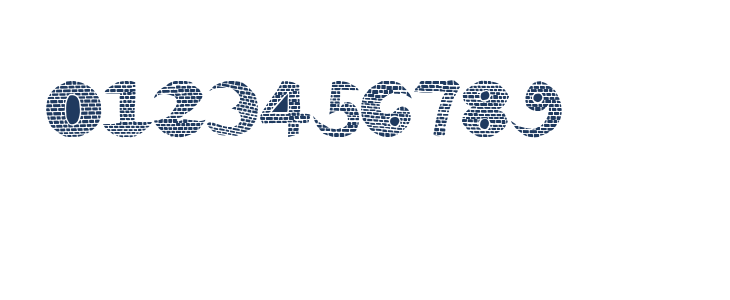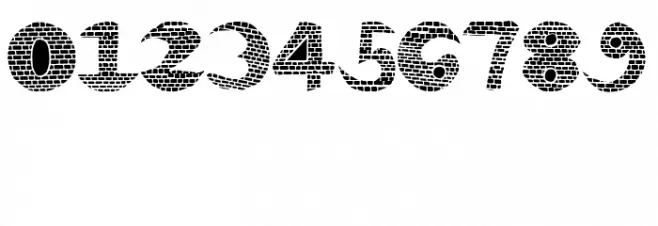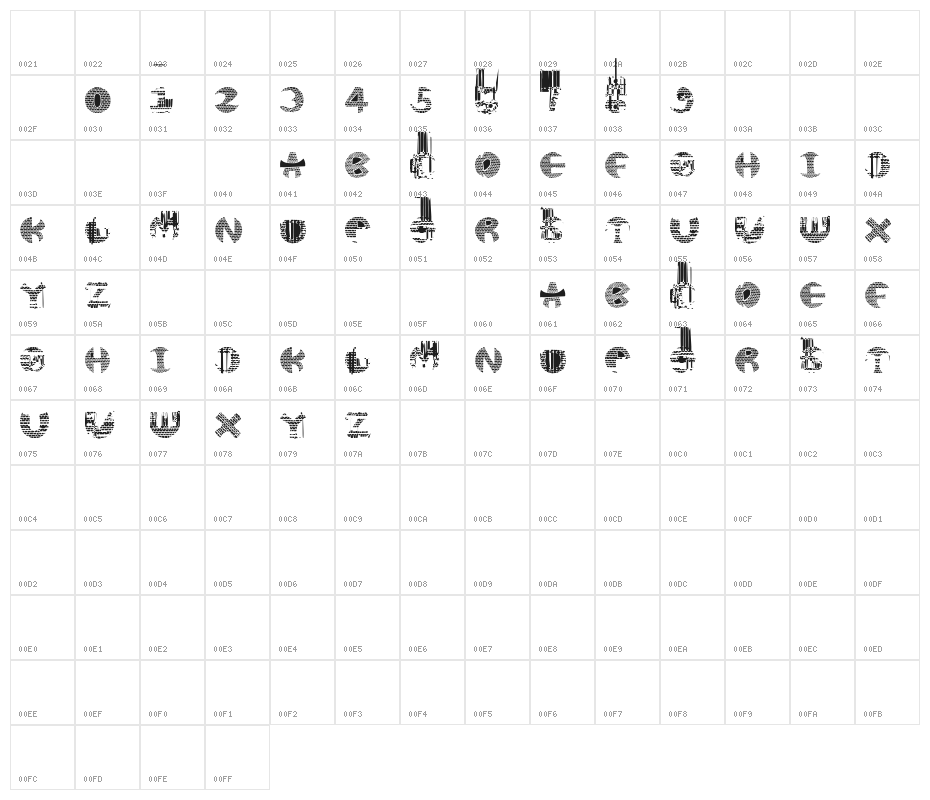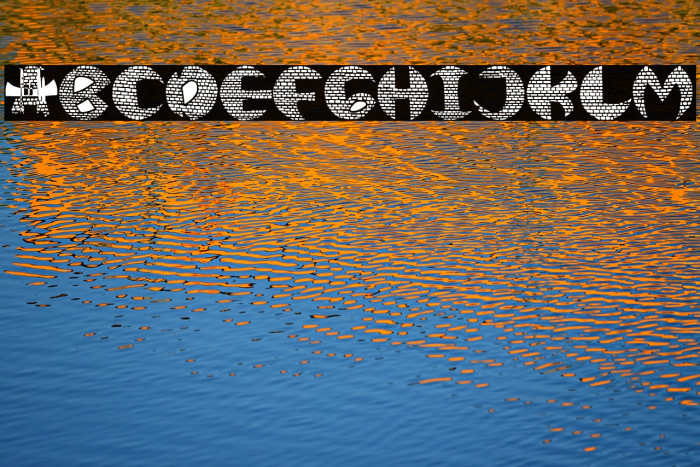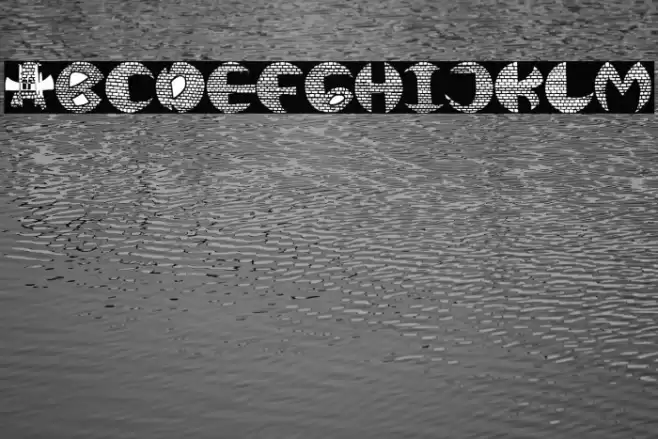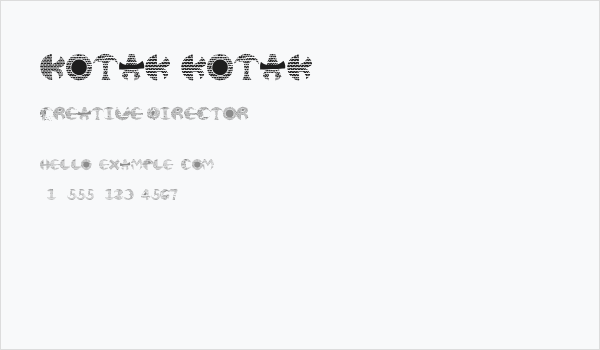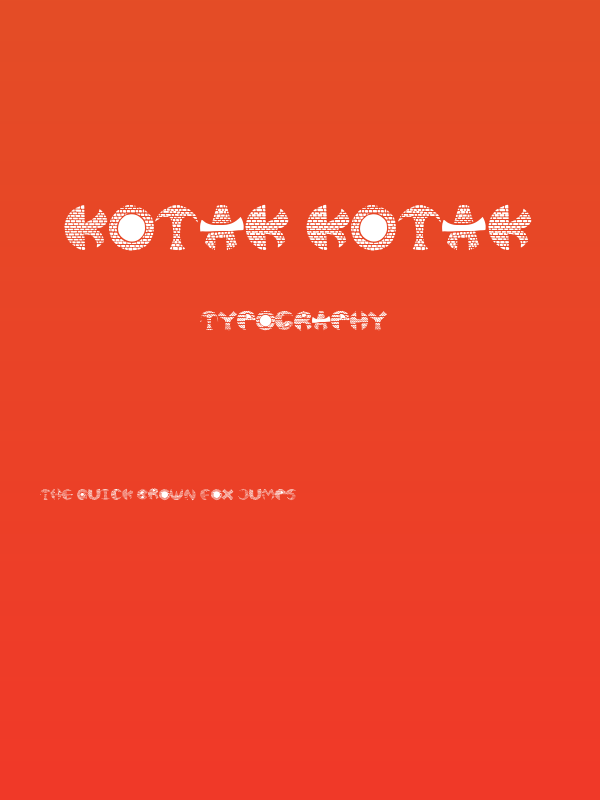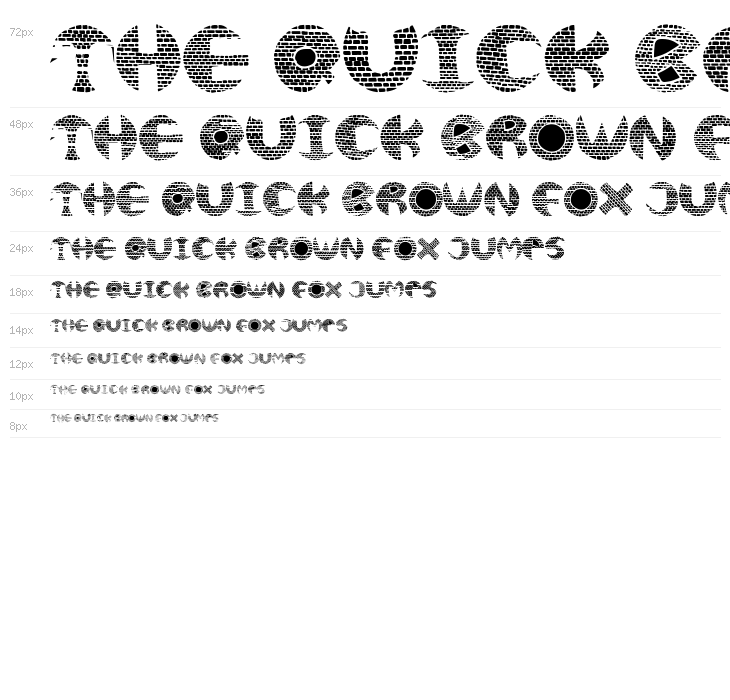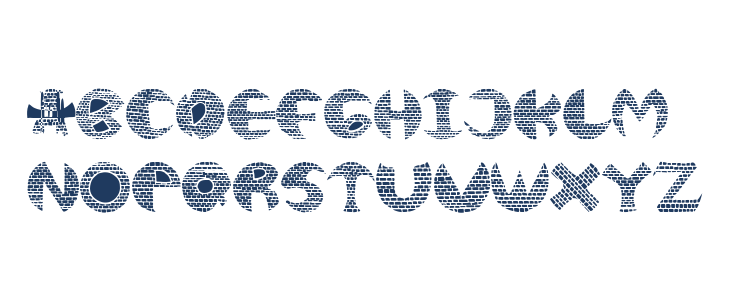
KOTAK KOTAK Font
KOTAK KOTAK Description
This font features a unique design with a brick-like pattern filling each character, creating a textured and bold appearance. The letters are rounded and maintain a consistent thickness, giving them a cohesive look. The pattern within the characters adds a decorative element, making it stand out for creative projects. The overall style is modern and artistic, suitable for eye-catching designs. The font includes both uppercase and lowercase letters, numbers, and a selection of special characters, all maintaining the same distinctive pattern.
| Proposed Projects | Ideal for posters, logos, branding, and any project requiring a bold, artistic touch. |